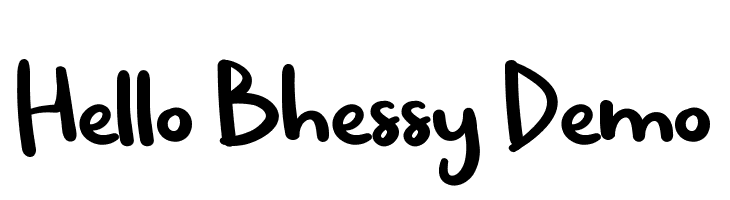
A playful, handwritten font with smooth, rounded edges and a casual vibe.
A playful, casual handwritten font with rounded, slightly irregular letterforms.
A bold, spiky decorative font with a playful, cactus-like design.
A modern, geometric font with bold, rounded strokes and a futuristic design.
A bold, handwritten font with fluid, slightly slanted letterforms and a playful style.
A bold, playful script font with a handwritten style.
Hand-drawn, mask-themed decorative font with unique illustrations for each character.
A bold, blocky font with a strong geometric design, ideal for impactful headlines.